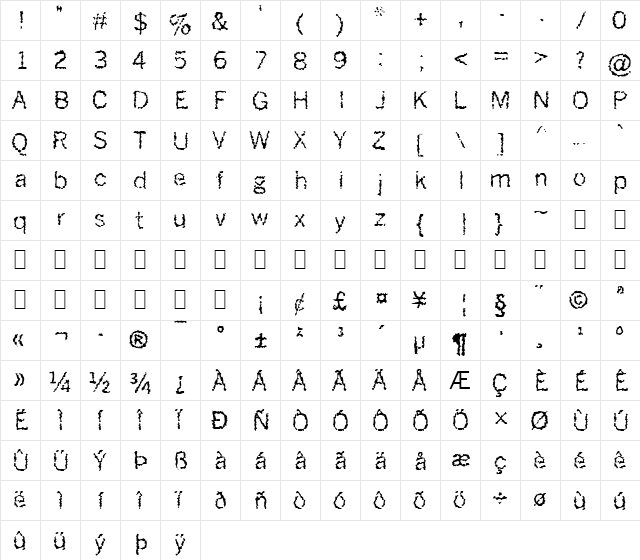
Ozlo Normal
Design Context for Ozlo Typeface
Ozlo takes a measured approach to typography — its balanced proportions and neutral character make it a reliable workhorse for both digital and print work.